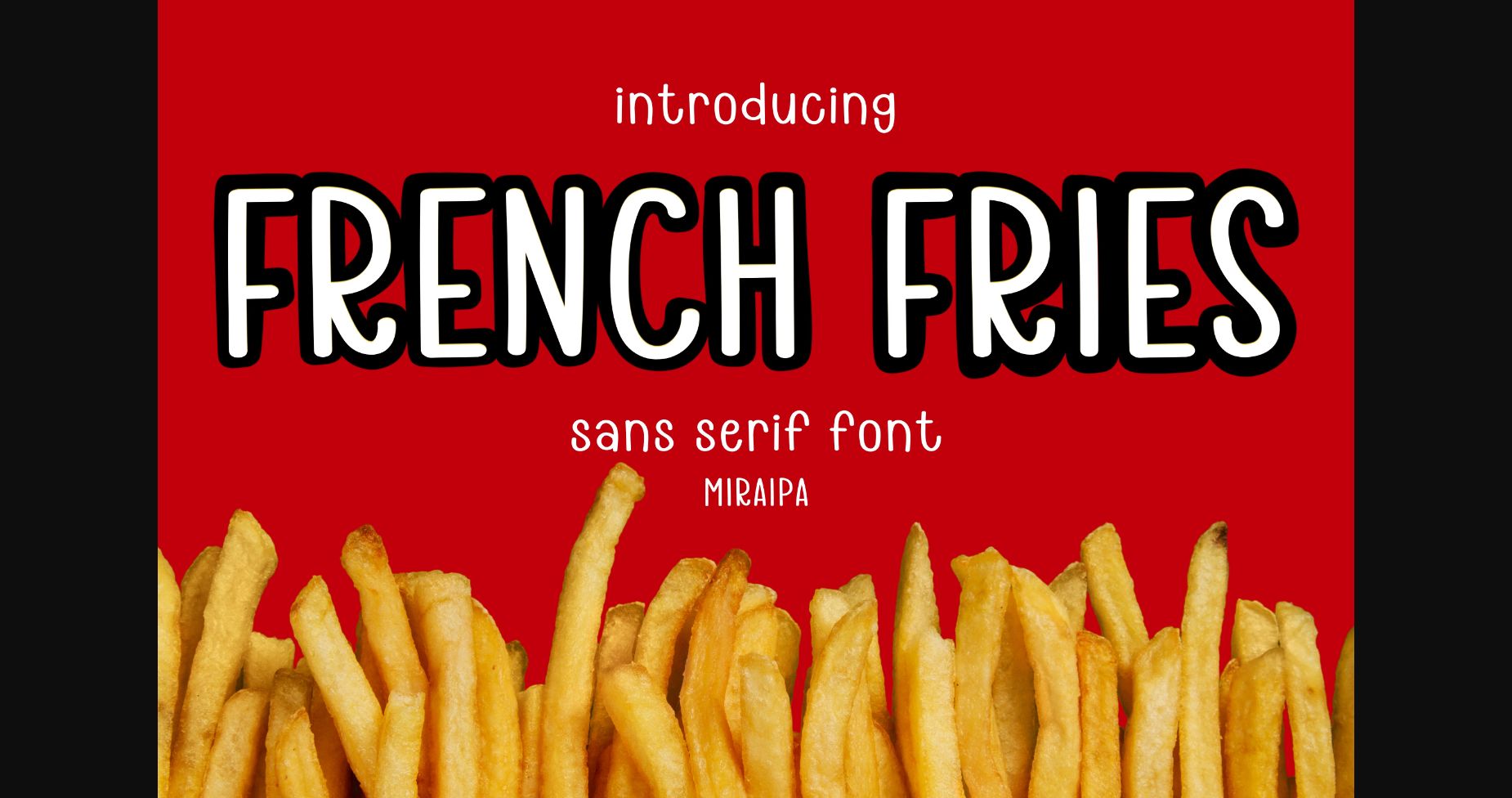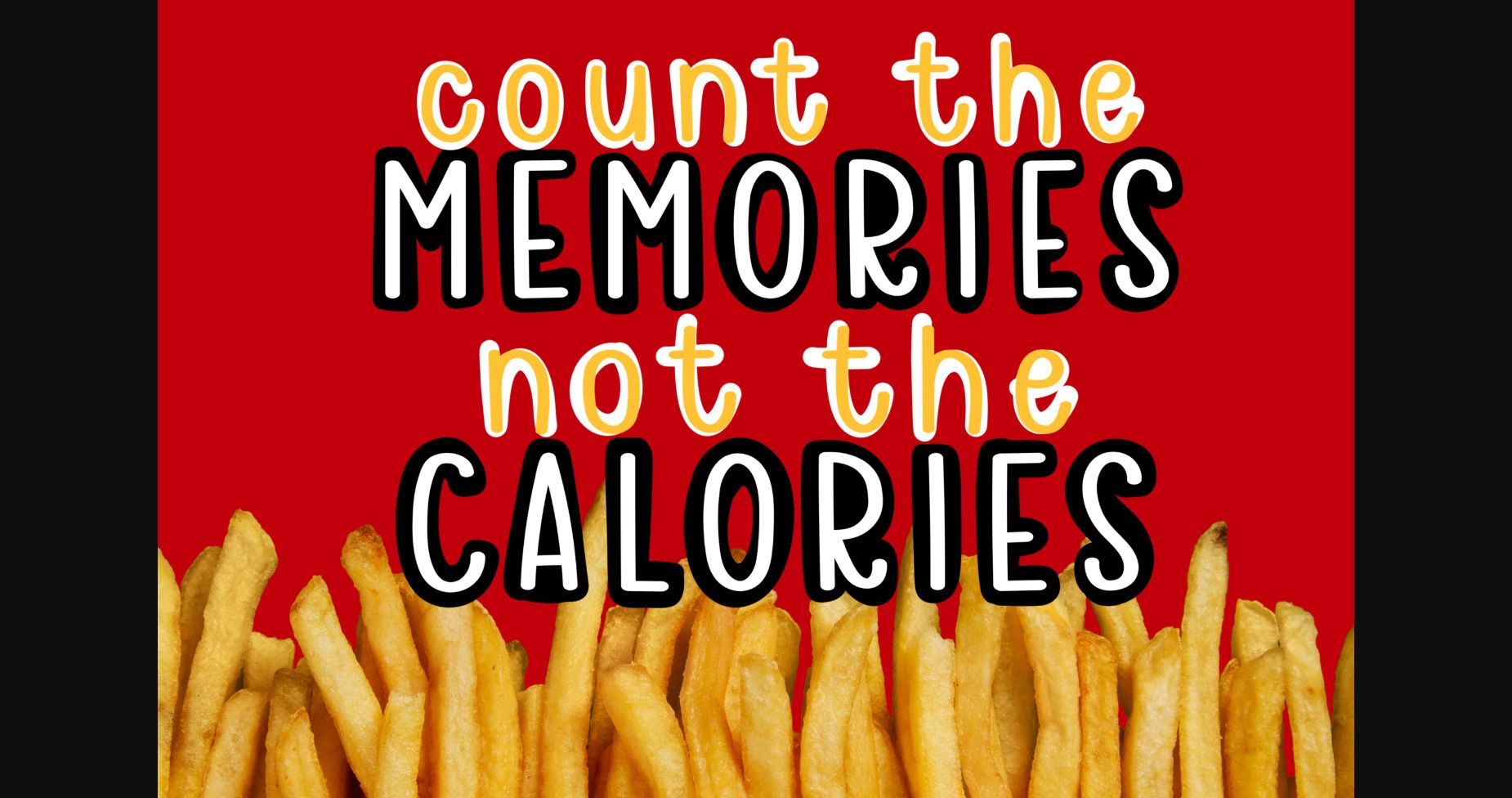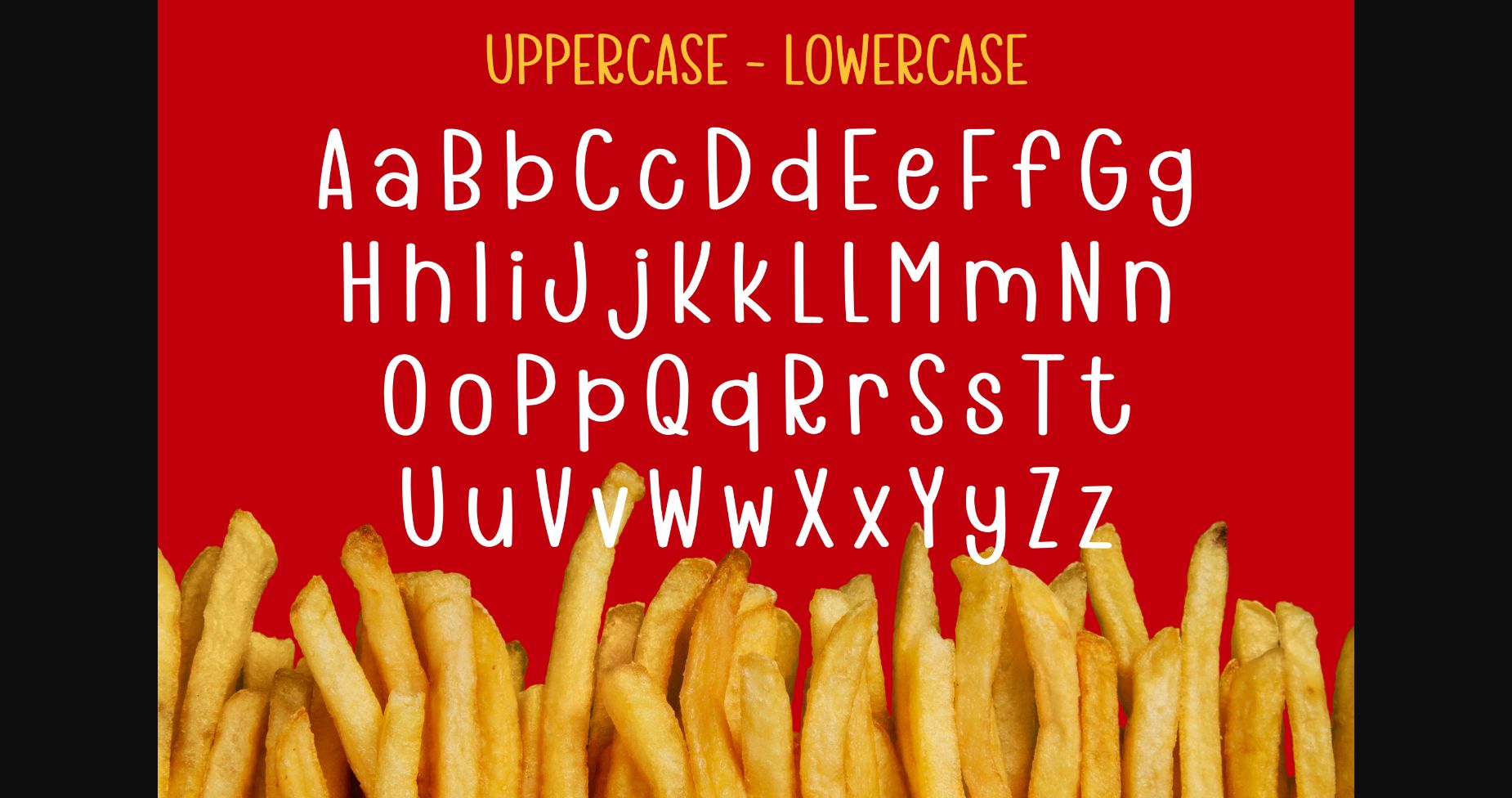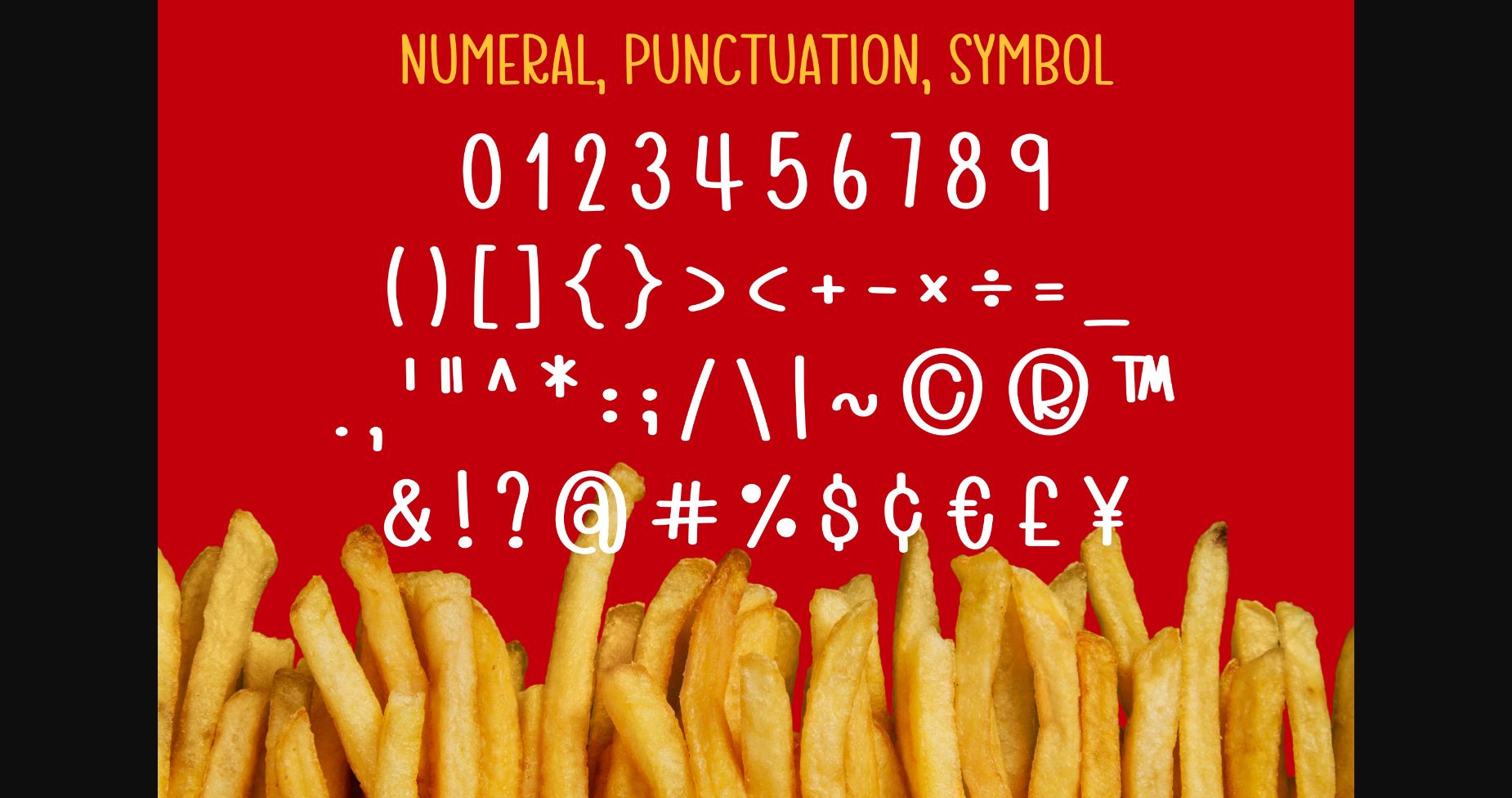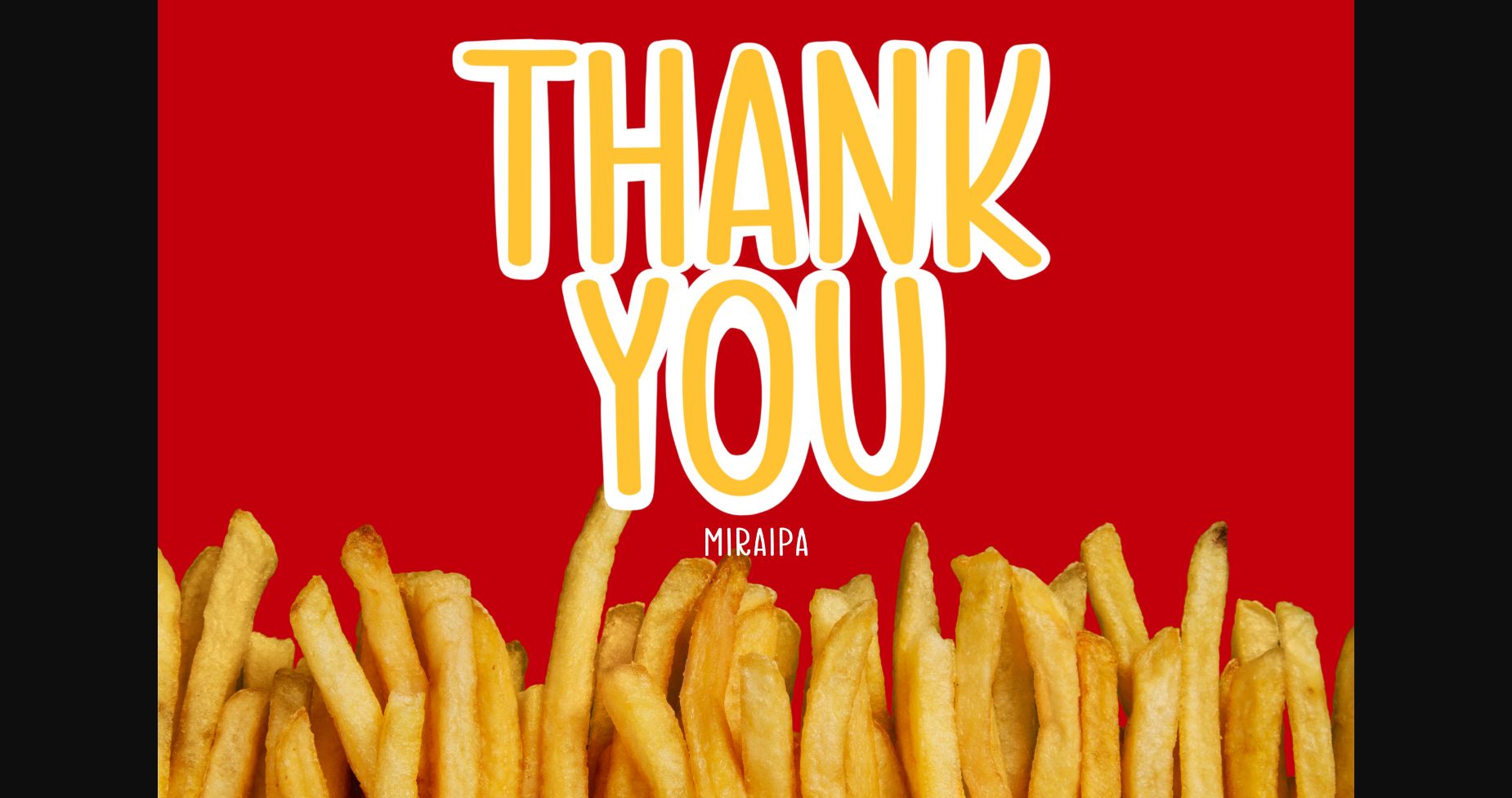
French Fries Font
About French Fries Font
French Fries is designed in a lovely and friendly handwritten sans serif font style. It would be awesome for planners, posters, blogs, clothing, child-related designs, greeting cards, social media posts, or anything that needs a playful touch. Add it now to your fonts library, and it will bring any of your DIY projects to life.